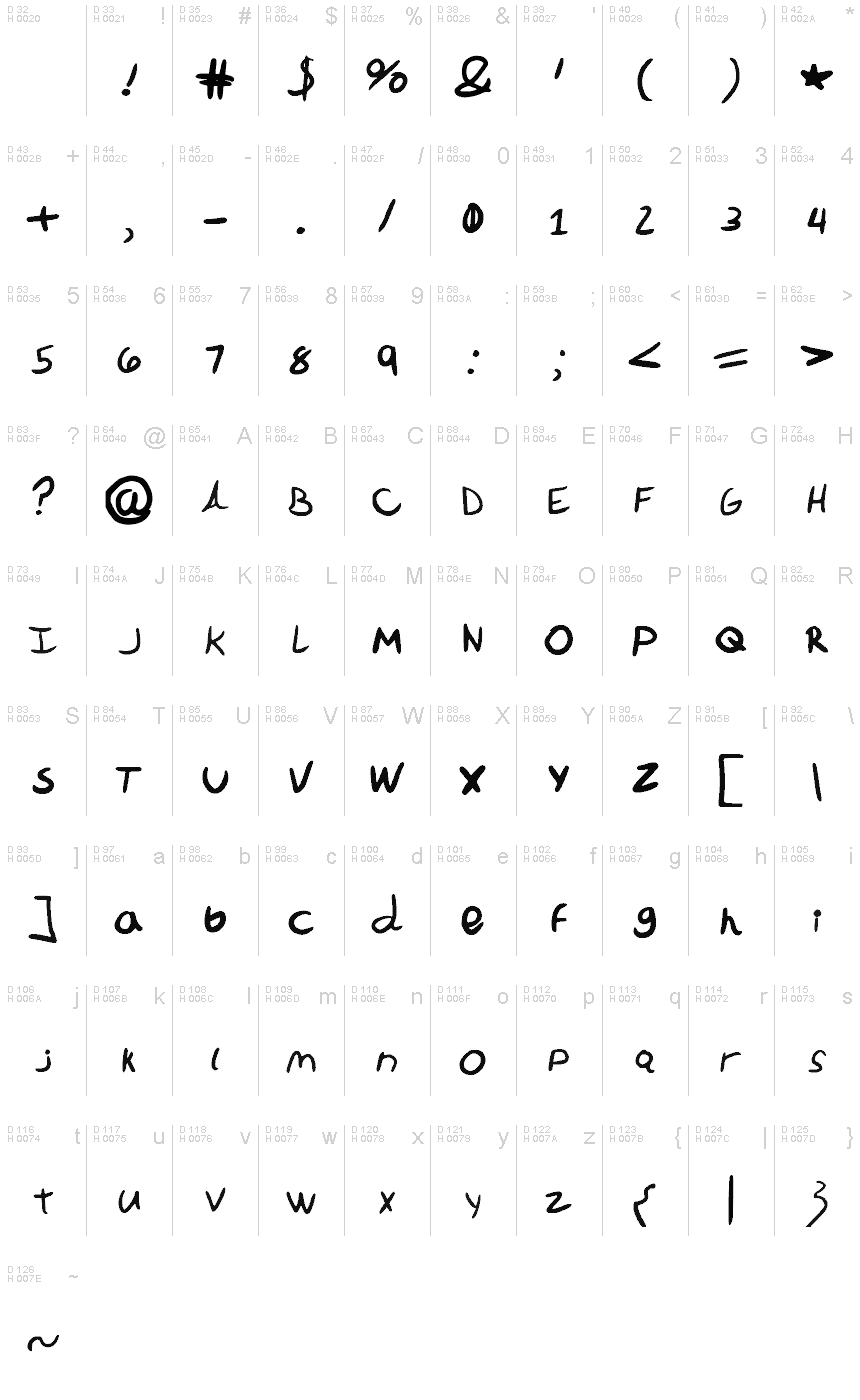
LaIzzIerComiC
LaIzzIer Comic, a playful and expressive font created by designer Jack Jerod, exudes a delightful sense of whimsy and character. With its bold, undulating strokes and quirky, hand-drawn aesthetic, this display font captivates the eye and infuses any design with a touch of playful charm. The font's unique blend of angular and curved elements lends it an endearing, almost mischievous personality, making it a standout choice for projects seeking to convey a sense of fun and personality.
This versatile font shines in a variety of design contexts, from eye-catching headlines and logo treatments to vibrant social media graphics and promotional materials. Its playful, comic-inspired style lends itself particularly well to projects targeting a younger audience, such as children's books, comic books, and educational resources. Additionally, LaIzzIer Comic's distinctive flair can breathe life into branding and marketing campaigns seeking to establish a memorable, approachable identity.